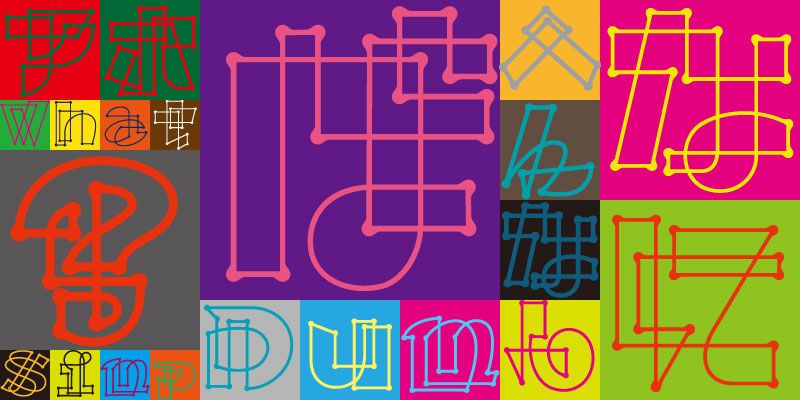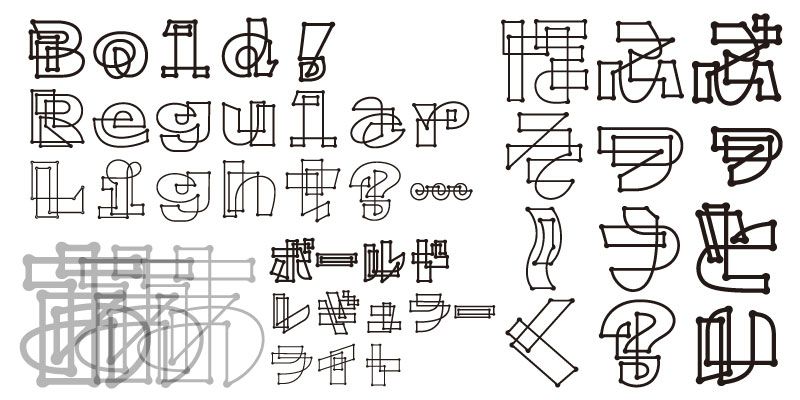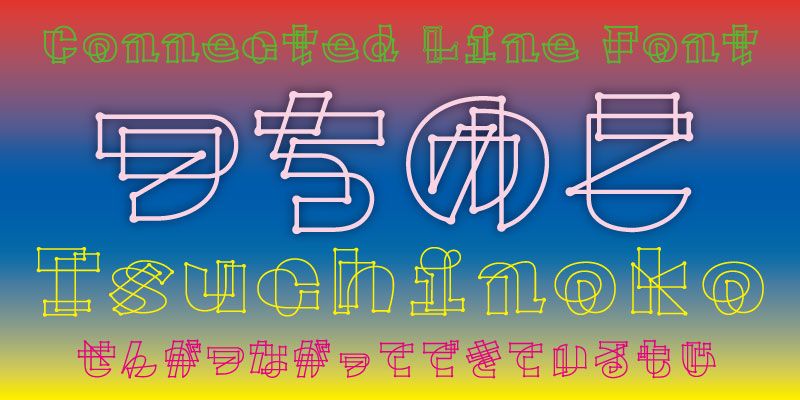
This font features lines that connect so closely you may hesitate for a moment, wondering how to read it.
That very lack of readability is the key characteristic and appeal of this typeface.
It includes hiragana, katakana, alphanumeric characters, and a full range of symbols.
Like solving a cipher, this font invites playful and unconventional uses unique to its design.